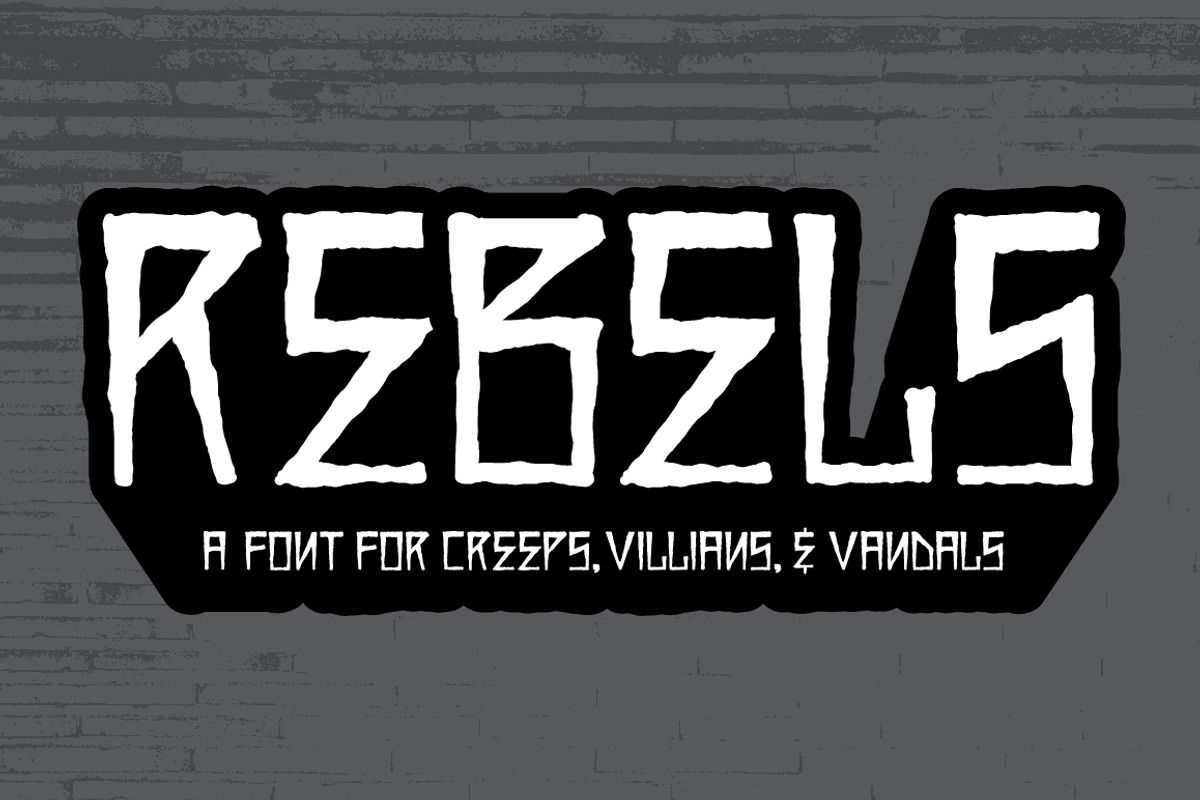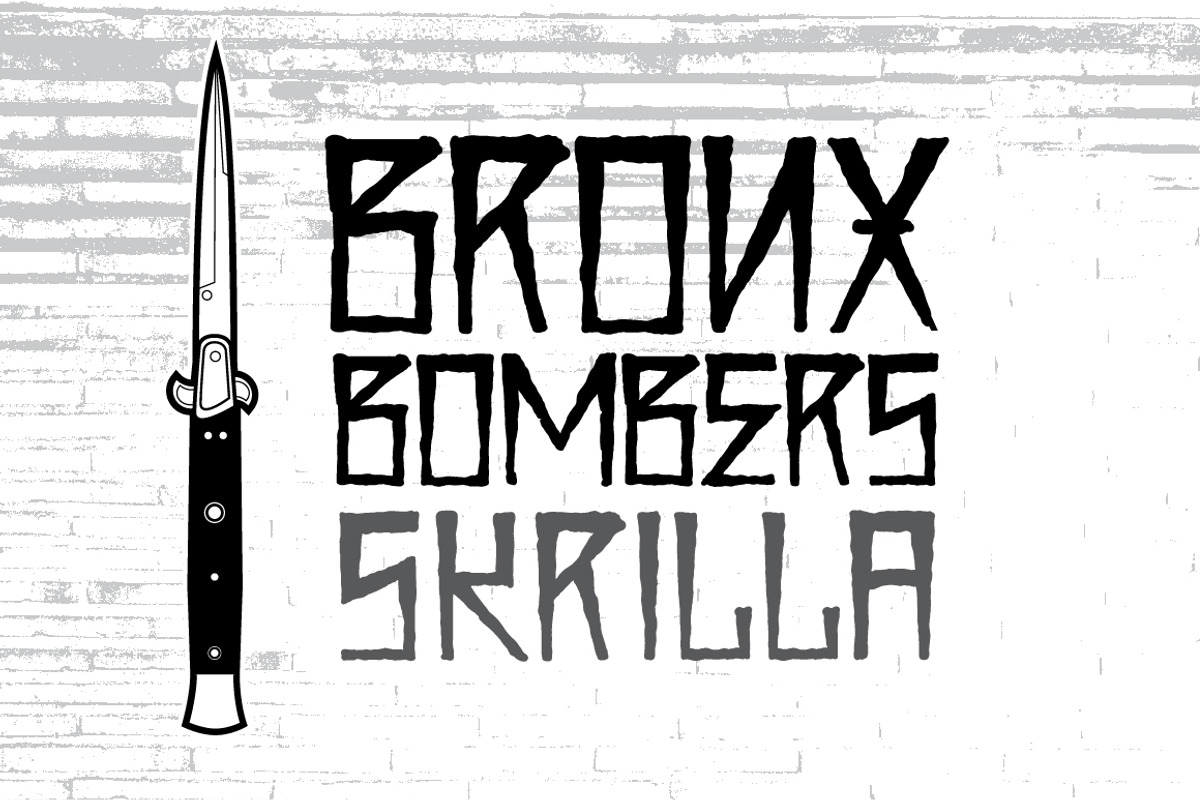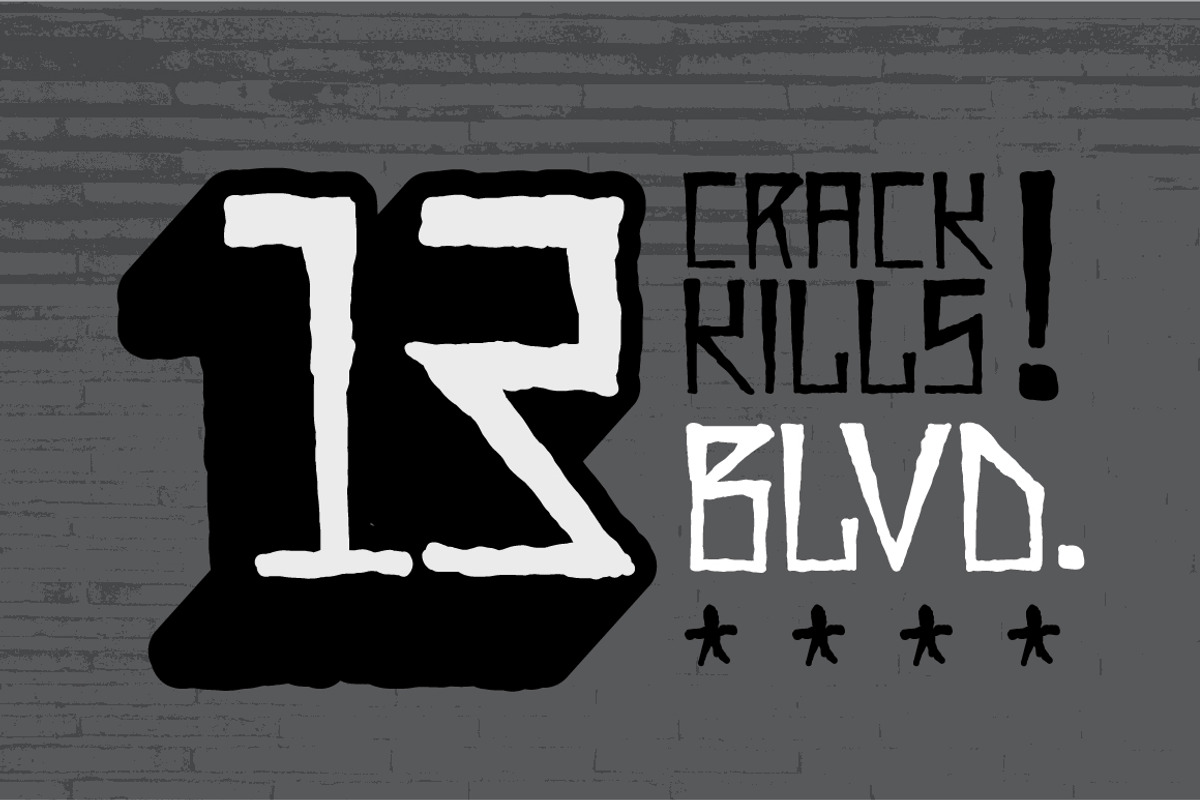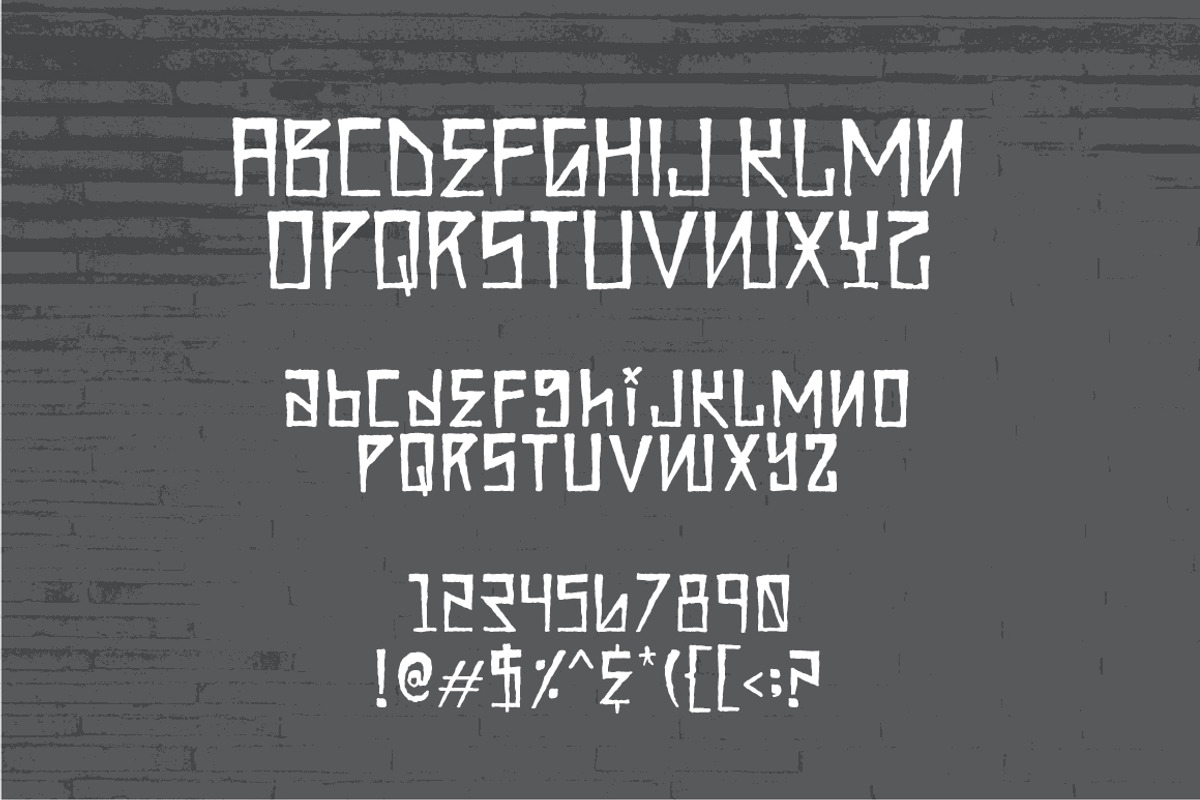
Rebels font
Rebels font by Miguel Ibarra Design is a font selected for branding, posters, packaging, typography.
Why Rebels font is worth a look
Rebels font by Miguel Ibarra Design fits naturally into Branding, posters, packaging, typography.